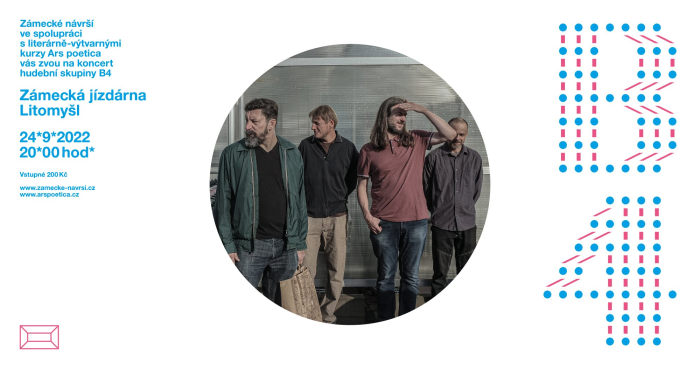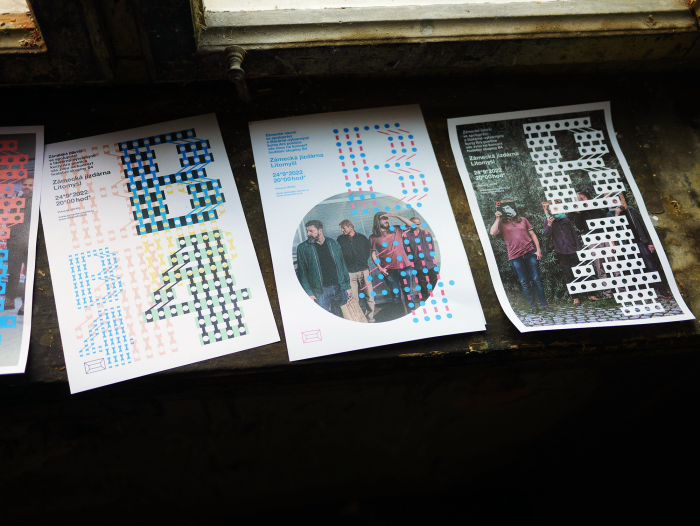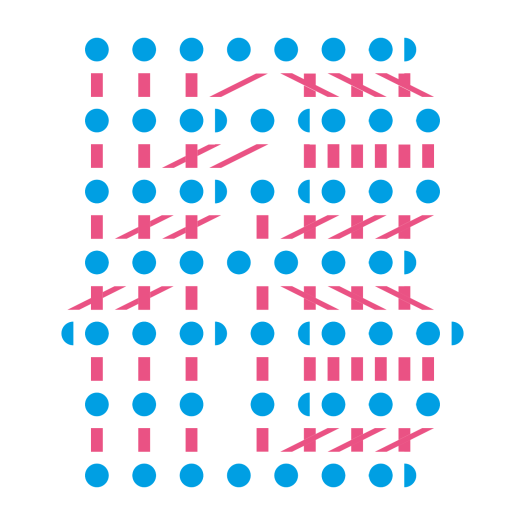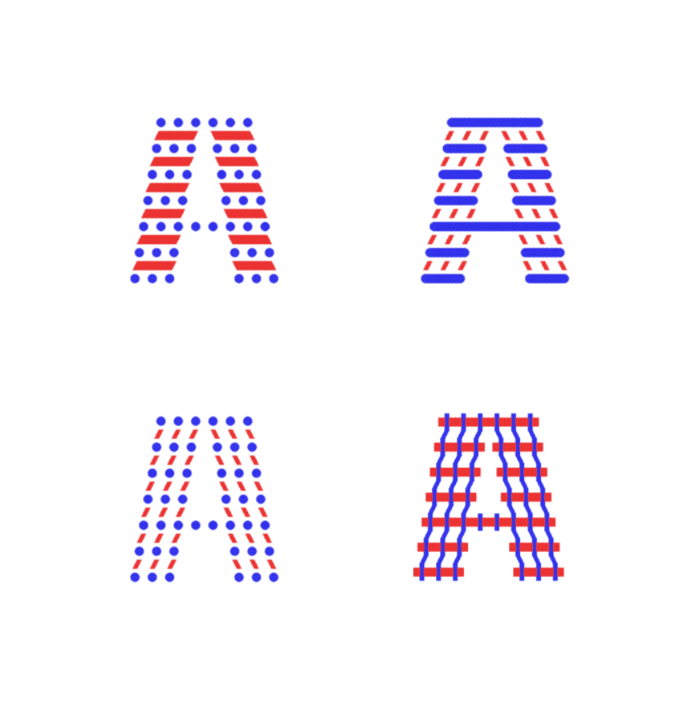
thx, elmo! the font was conceived when i had no clue yet about the gig :)) and i was just told that these A-letters look like pajama bottoms and that i should consider entering the fashion design, so the gig is forgotten, prepare for pictures with people in cicmankaput pajamas!
Nice addition to the family. They go very well together, so much so that one would have to wonder if the concert was made for the font or vice versa.
Wow, great! I'll love that for sure! ?